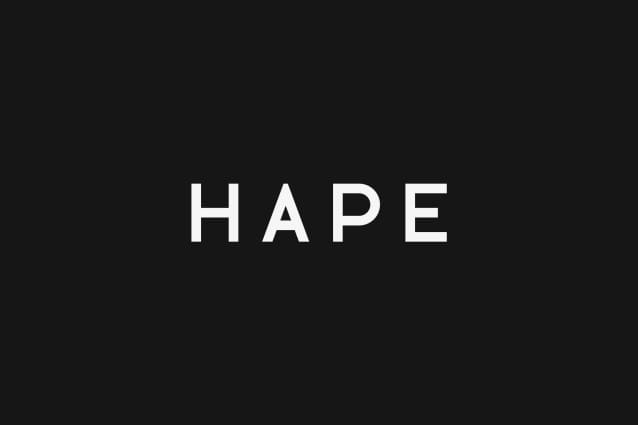
Hape Sans Font
Hape Sans Font is an elegant and versatile display font that will make your typography truly unique! It will enchant every logo, branding, headline, or plain text!